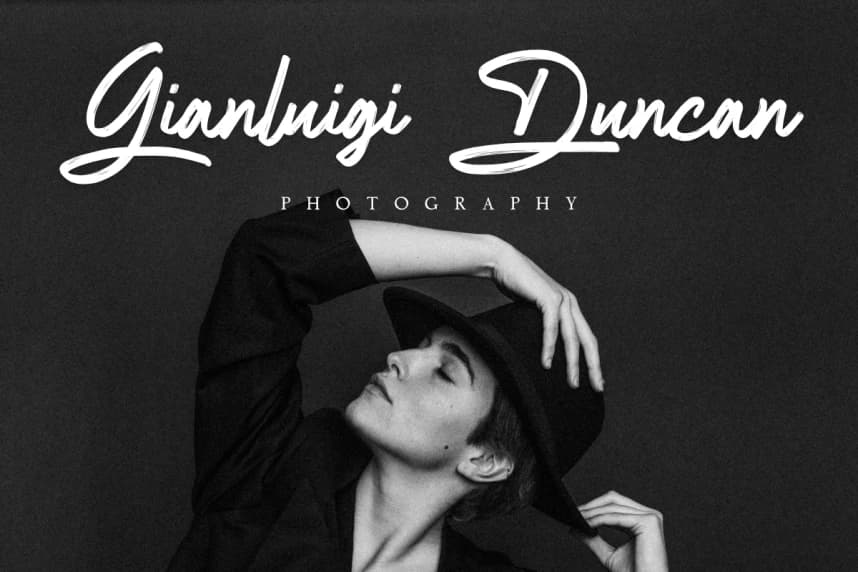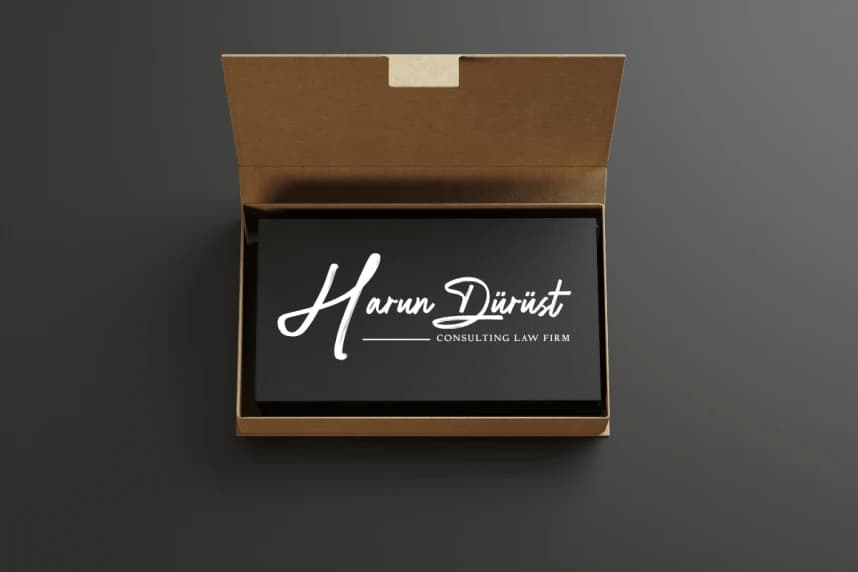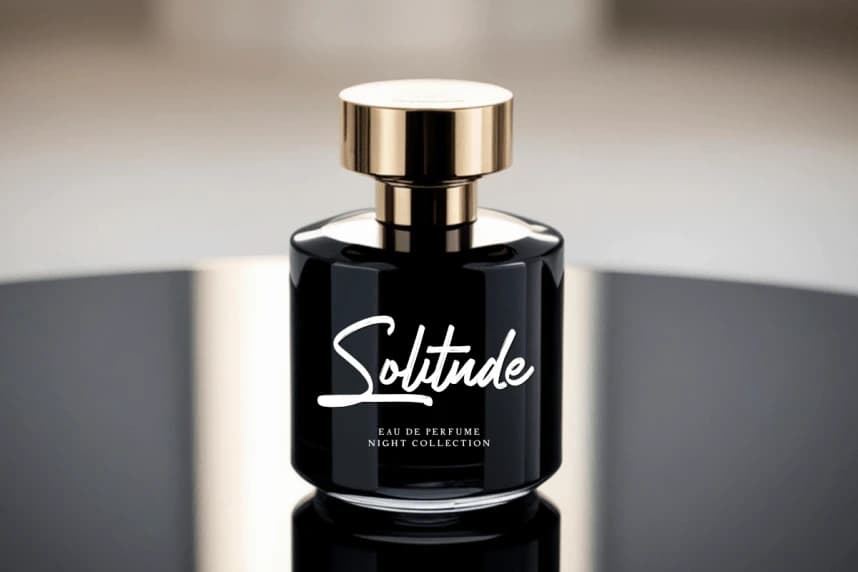
Glamour Palace – Brush Script Font
Glamour Palace – Brush Script Font is an elegant brush script font designed to bring luxury, charm, and handcrafted sophistication into your creative projects. Inspired by natural signature lettering, this font combines smooth flowing strokes with stylish brush textures, creating a refined and expre
Glamour Palace – Brush Script Font is an elegant brush script font designed to bring luxury, charm, and handcrafted sophistication into your creative projects. Inspired by natural signature lettering, this font combines smooth flowing strokes with stylish brush textures, creating a refined and expressive script that feels both personal and premium.